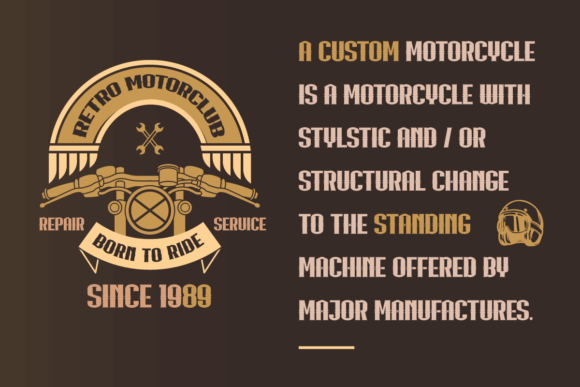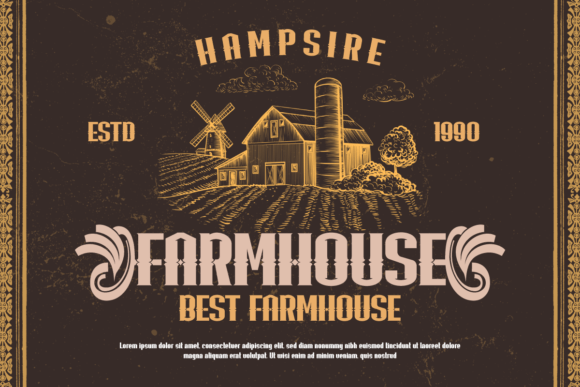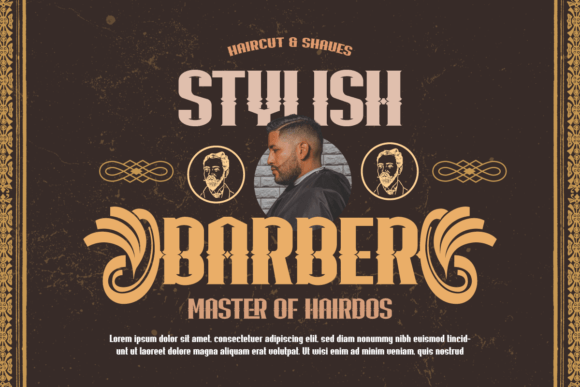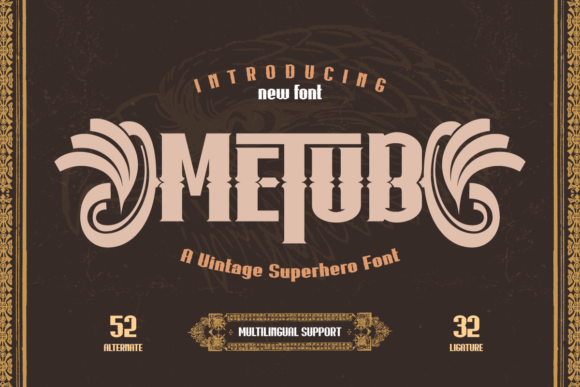
Introduction to Metub Font
Introducing Metub a vintage and modern display font with a unique and powerful serif style that’s sure to make your designs stand out.
Each letter is meticulously crafted to convey strength and individuality, making this font the perfect choice for bold and impactful projects Remember that the font is PUA encoded, meaning you can access all delightful glyphs and swashes effortlessly.